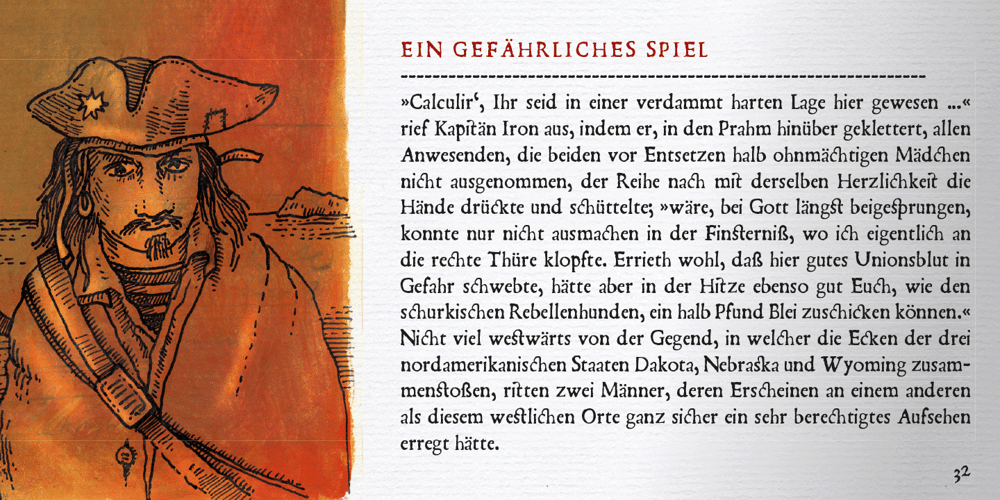
Argento Font Family was designed by Florian Zietz and published by Librito.de. Argento contains 1 styles and family package options. The design for this typeface is based upon four sheets of an old latin book I purchased in Hanover (Germany) a couple of years ago. The letters preserve the rough edges of the original printing, I just added a few missing letters and some ligatures.